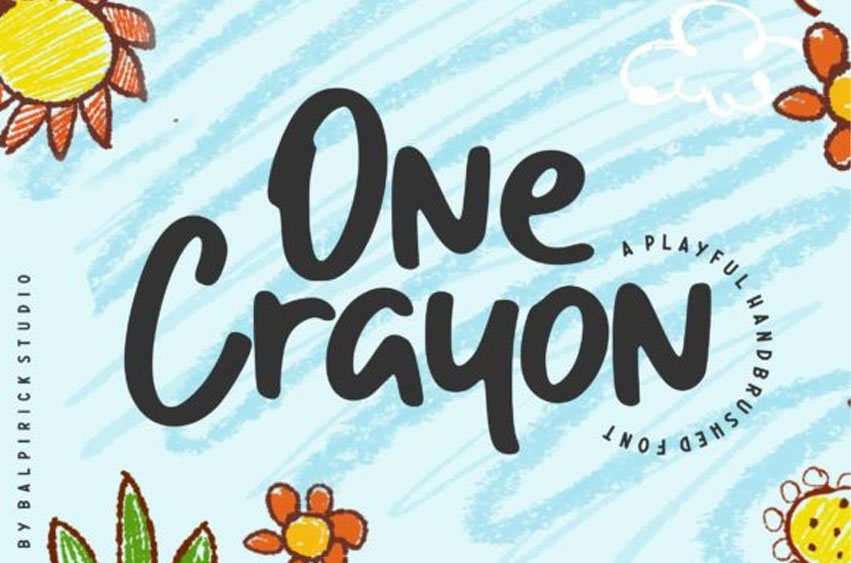
One Crayon Font
One Crayon Font is a cute and informal display font.
It embodies playfulness and authenticity and is the perfect choice for any children’s activity or school project.